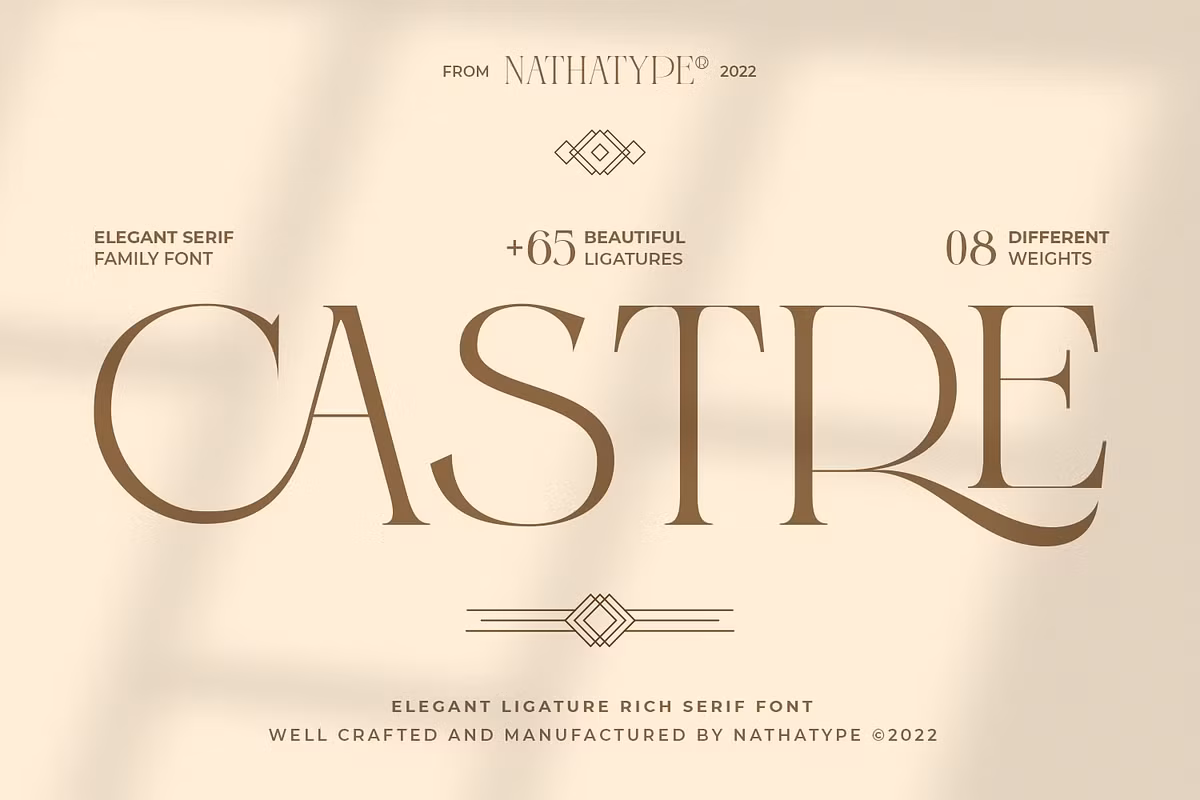
Castre - Serif Font Family Free Download is a refined typeface collection that blends classic serif elegance with modern versatility. Ideal for editorial layouts, branding, book covers, and luxury packaging, Castre offers multiple weights to suit a variety of design needs. Please note that you must purchase this font for commercial use, but it is available as a free download for testing purposes. Add a timeless, sophisticated touch to your next project with Castre - Serif Font Family Free Download, and enjoy the flexibility of a well-crafted, professional font family.